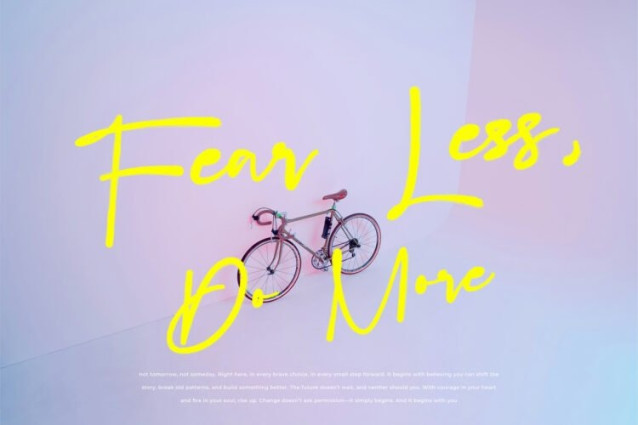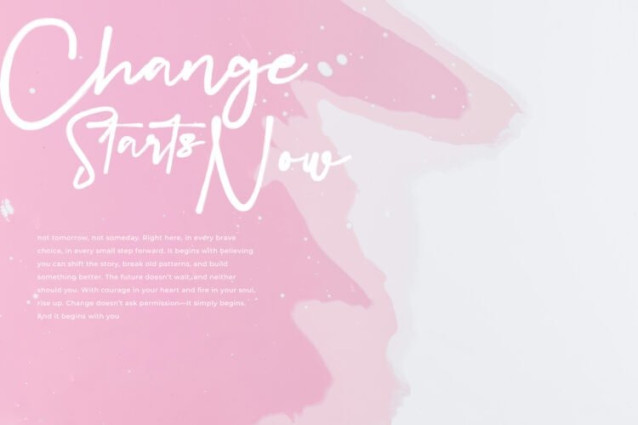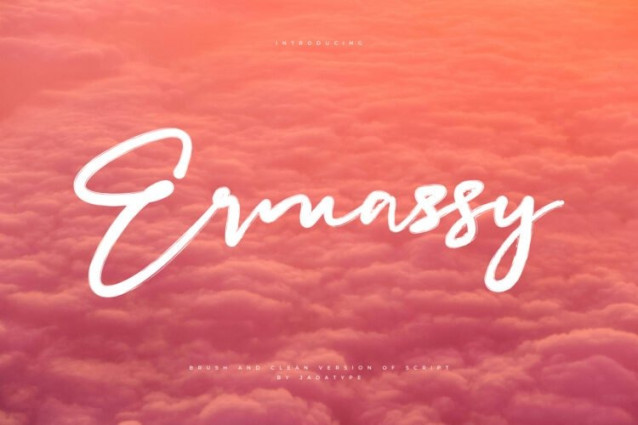
Ermassy Brush Font
Ermassy Brush Font is a brush script font with a catchy’s vibe. suitable for social media, vacation themes, music posters, advertisements, and so on. contains standard English letters, numbers, punctuation, and several accents that support multilingualism.